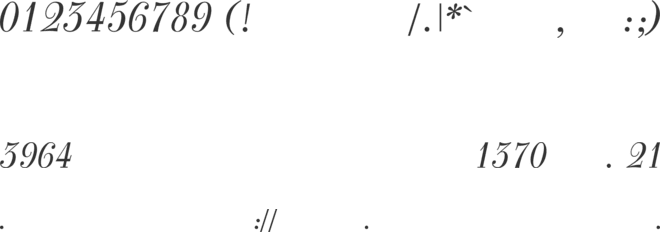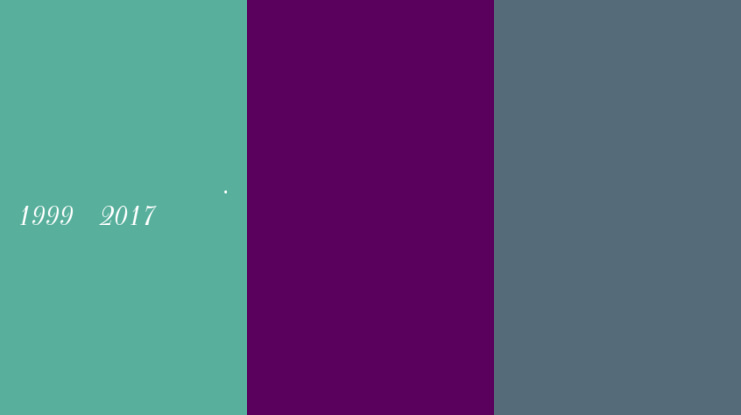
This font was named for the German publisher Georg Joachim Göschen, who, at the turn of the 19th century, saw to the creation of a new cursive type for use in an edition of the New Testament in Greek. The typeface was cut by Johann Prillwitz, and was influenced by the Greek types of Bodoni.